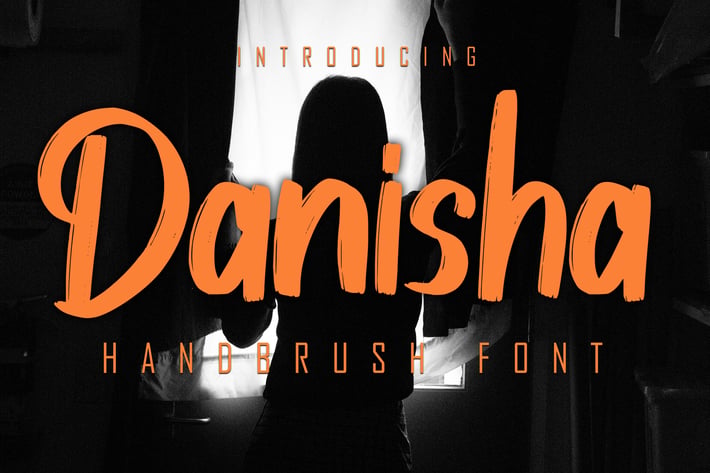
Danisha Handbrush Font
Danisha is a type of textured brush or paint scratches or original brush, there are textures like the original stroke of this font suitable for other film or commercial needs that can support your business or company. thank you